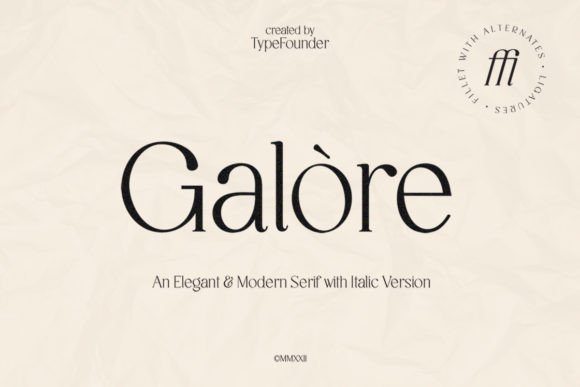
Journey into the realm of typography with Galore Font, a serif masterpiece crafted with elegance and a dash of modernity. This font is a visual symphony that captivates the senses, inviting you to explore the boundless possibilities of design.
Step into a world where letters dance with grace and harmony, where words take on a life of their own. Galore Font is not merely a collection of characters; it's an expression of art, a canvas upon which your creativity can flourish.
With its timeless serif style, Galore Font exudes an aura of sophistication and refinement. The gentle curves and delicate details add a touch of romance and charm to any project, making it an ideal choice for those seeking a font that speaks volumes.
The versatility of Galore Font knows no bounds. Whether you're designing logos, crafting invitations, or creating stunning social media graphics, this font will elevate your work to new heights. Its elegant strokes add a touch of class to any design, while its readability ensures that your message is conveyed with clarity and impact.
But Galore Font is more than just a beautiful sight; it's a font that stirs the soul. Its graceful lines and sweeping curves evoke a sense of nostalgia, transporting you to a bygone era of timeless aesthetics. Let your designs be imbued with a touch of history, a connection to the past that resonates with modern audiences.
With Galore Font, you hold the key to unlocking a world of elegance, sophistication, and creativity. Dive into a sea of inspiration and let your designs bloom with beauty. Experience the magic of Galore Font today and witness the transformation of your design projects into masterpieces of art.